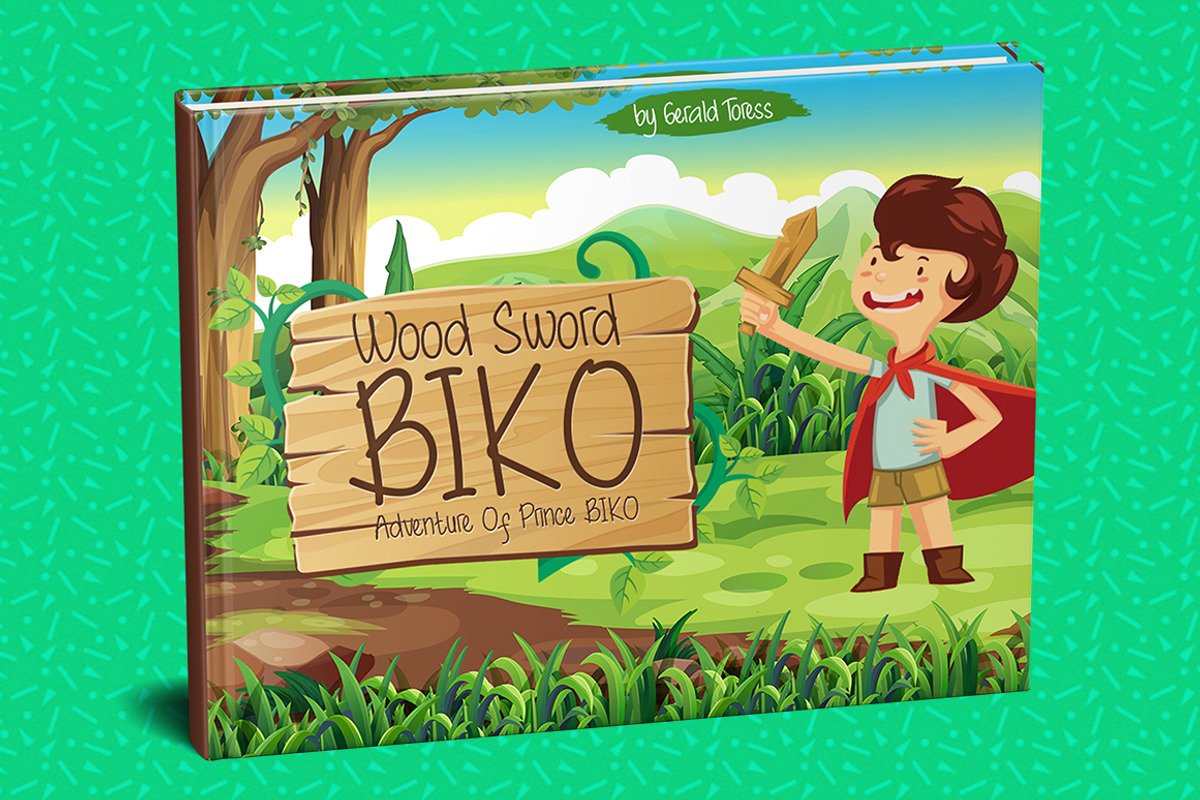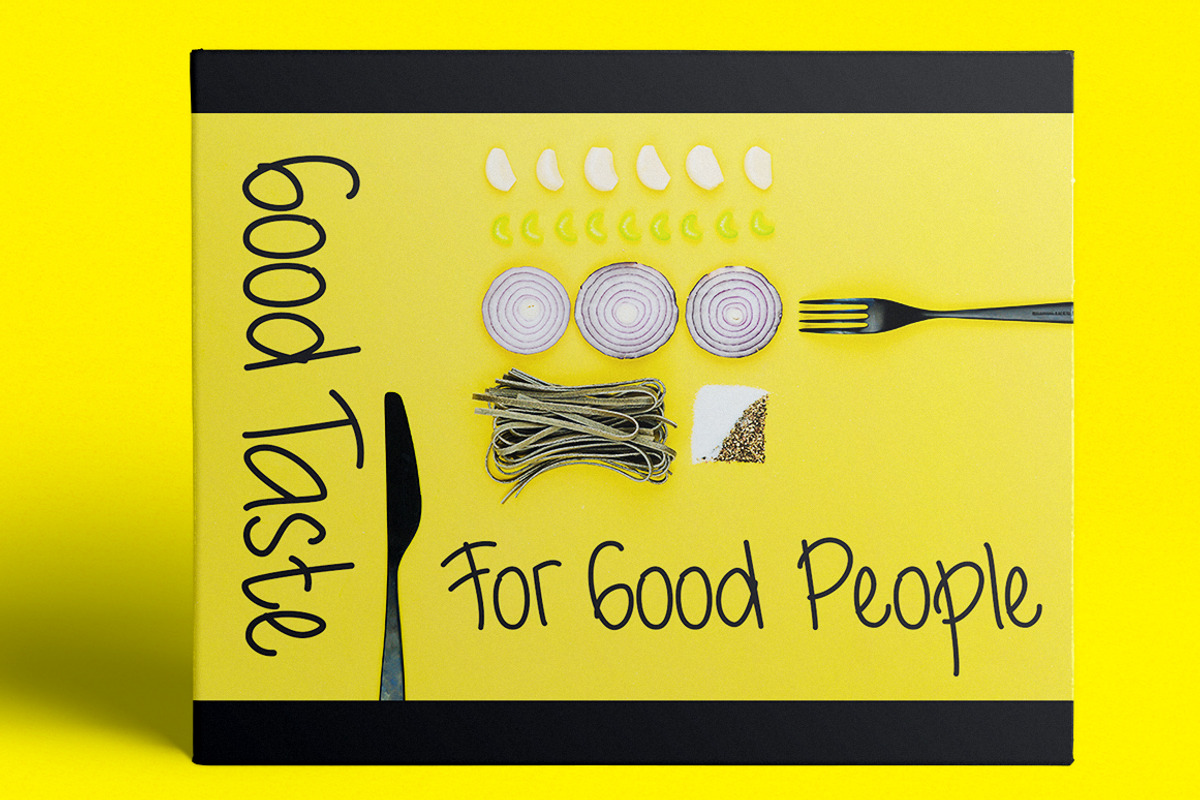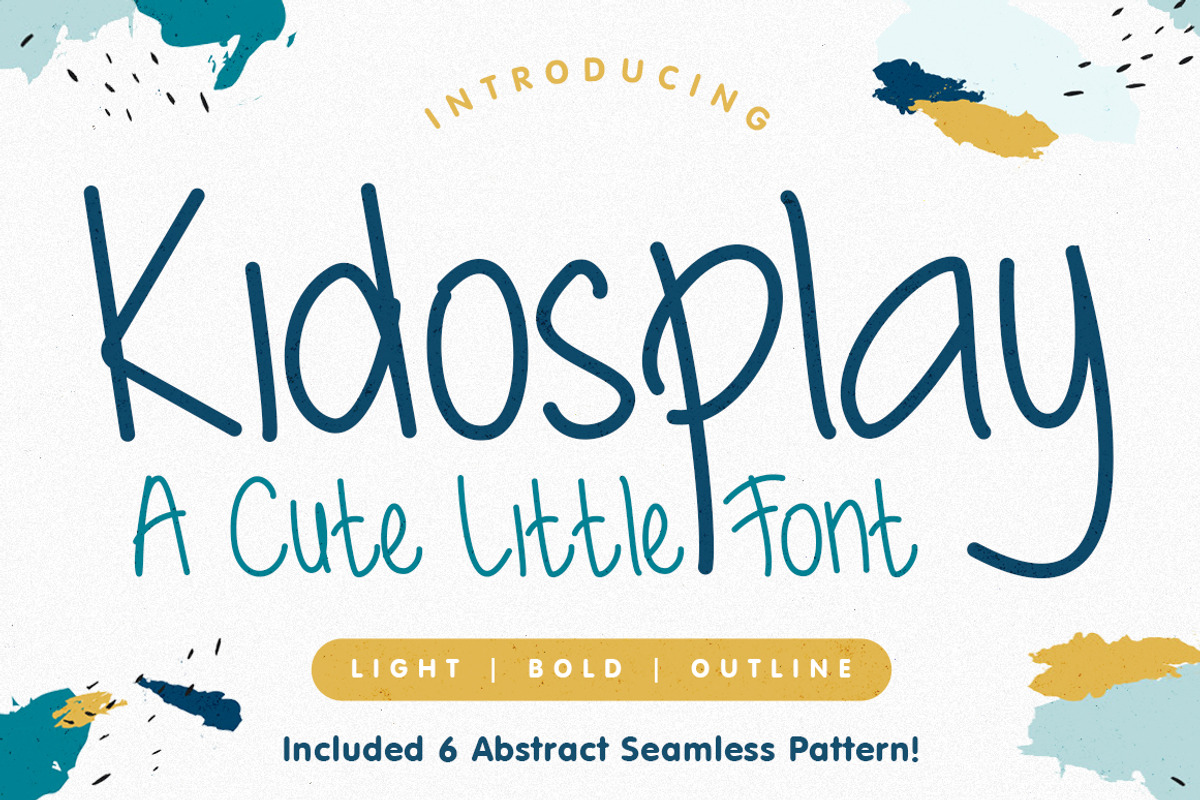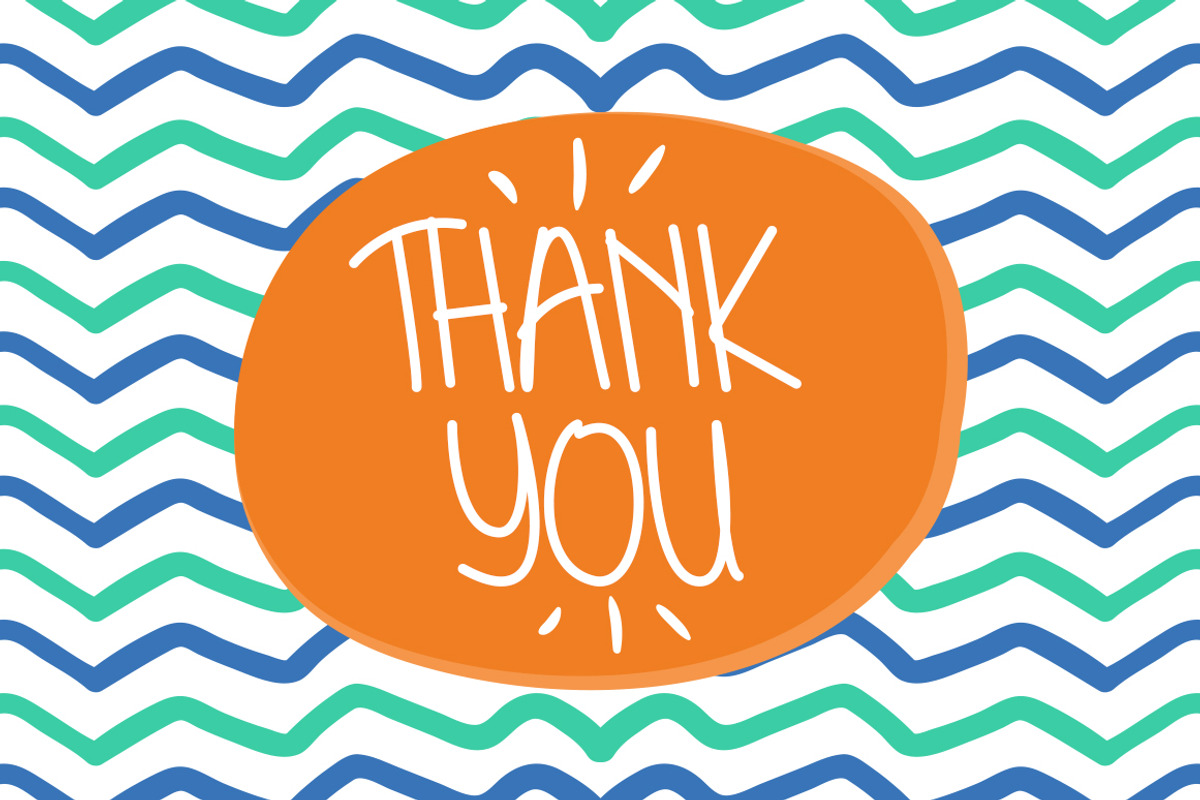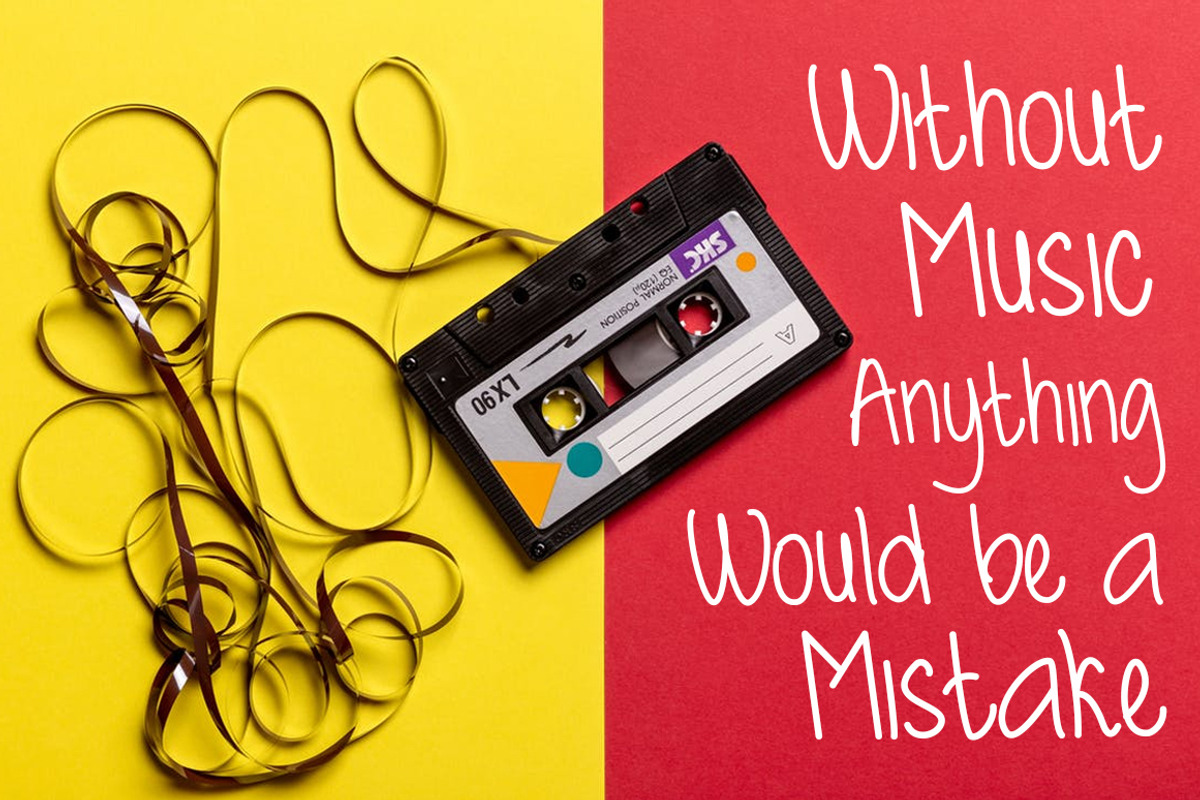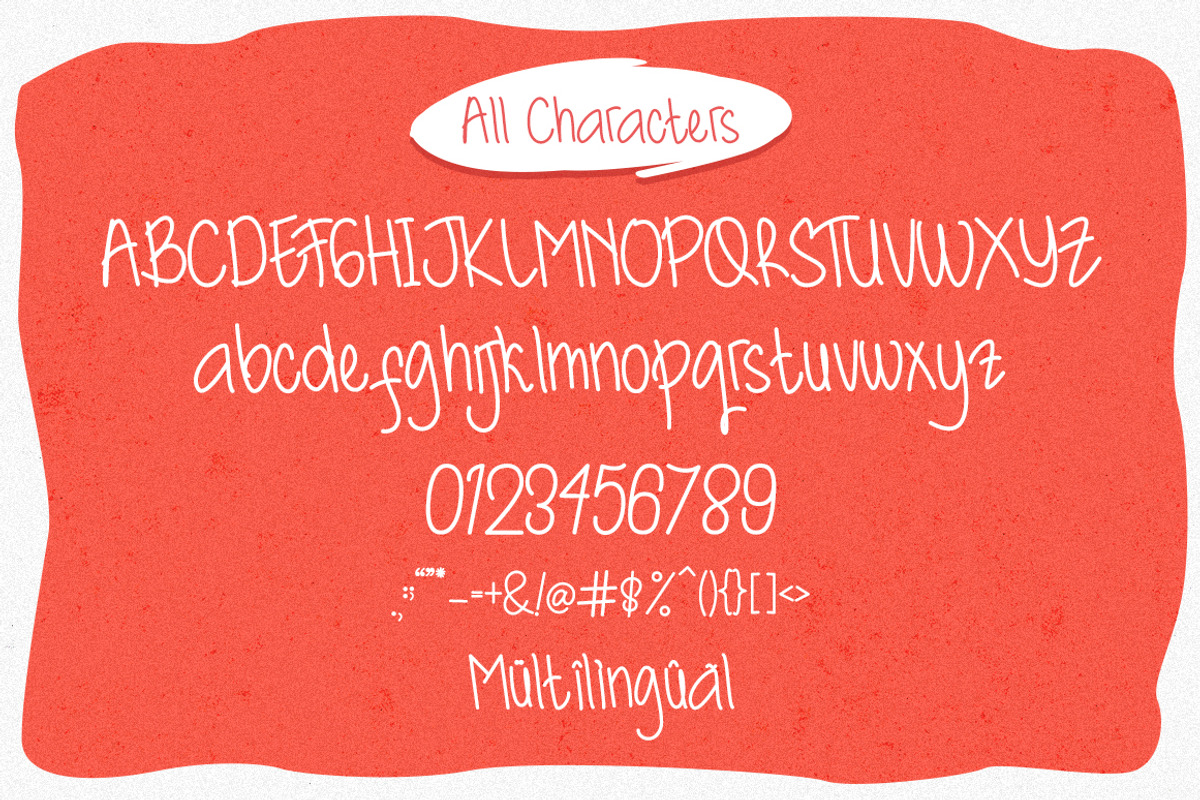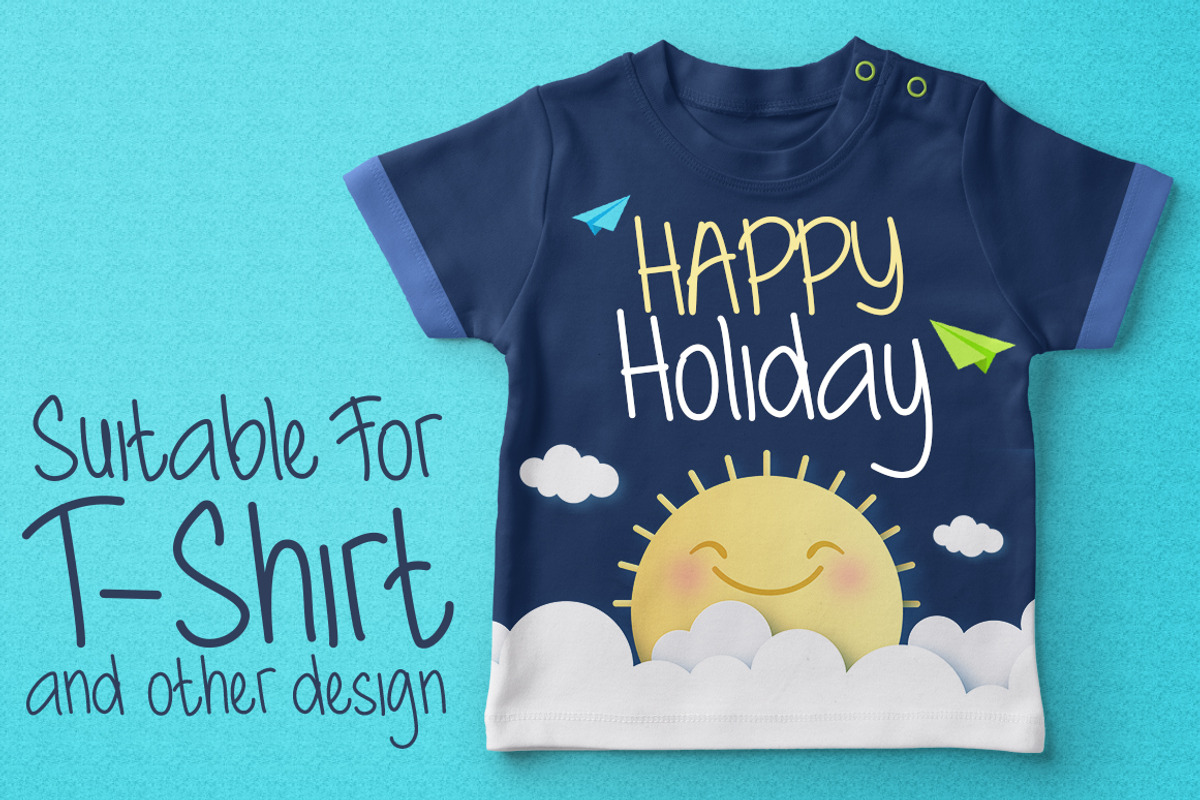
Kidosplay Font + Bonus
Introducing Kidosplay Font – a cute little font which comes in 3 styles: light, bold, and outlined. It has a playful feel and will give your design a fun touch.
Kidosplay font would be perfect for logos & branding, photography, watermark, social media posts, advertisements, invitation, product designs, label, stationery, wedding designs, product packaging, special events or anything that need handwriting taste.
Ton of glyphs (include Uppercase, Lowercase, Numerals & Punctuations, Ligature, Alternate, and Swashes)